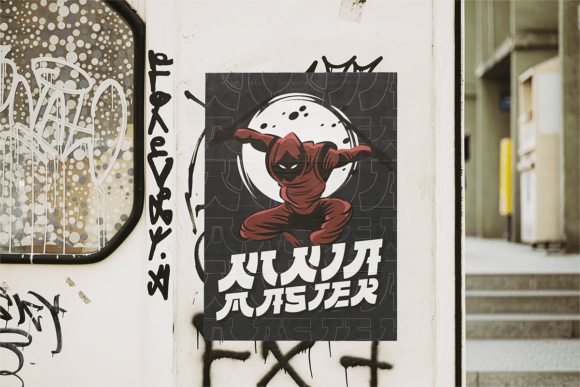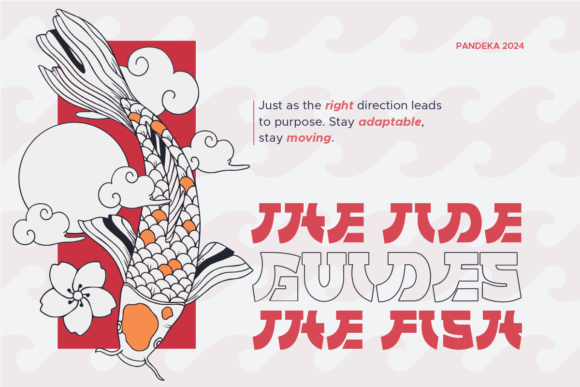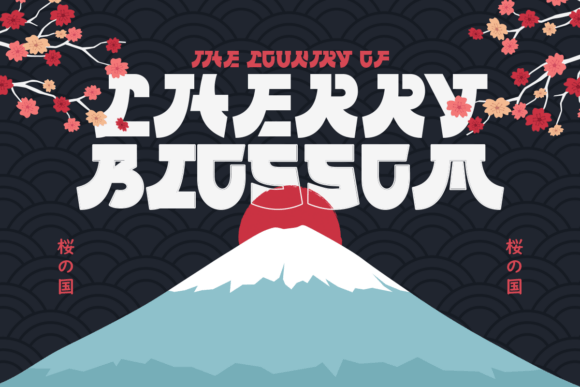
Introduction to Kotaru Font
Have you ever found yourself stuck in a design rut, searching for the perfect font to elevate your creative project? I know I have. That’s why I’m excited to introduce you to Kotaru Font, a stunning modern Japanese-inspired font that’s about to become your new go-to design resource.
Imagine being able to effortlessly craft beautiful, high-quality designs with a traditional Japanese flair, perfect for logos, branding, invitations, posters, and more. With Kotaru Font, that’s exactly what you can do. This versatile font comes in three unique styles – Regular, Extrude, and Outline – making it easy to find the perfect fit for your project.
Whether you’re a seasoned designer or just starting out, Kotaru Font is a valuable addition to your design arsenal. Its sleek, contemporary design and transparent background make it a breeze to work with, and with a free download available, you can get started right away.
Key Features of Kotaru Font
- High-quality font with a unique, elegant design, perfect for creative projects and design resources.
- Available in a transparent background, making it easy to customize and integrate into various designs.
- Includes a comprehensive character set, covering a wide range of languages and characters.
- Designed with high resolution in mind, making it suitable for use in print and digital media, up to 300 DPI.
Honest Review: Kotaru Font
I recently came across the Kotaru Font, a high-quality design resource that’s perfect for creative projects. At first glance, I was impressed by the sleek and modern design of the font. One of the standout features is the transparent background, which makes it easy to integrate into any design.
Here are some of the things that work well with the Kotaru Font:
- ⚠️ Limited customization options, which may not be ideal for designers who want more control
- ⚠️ Not suitable for all types of designs, particularly those that require a bold or dramatic font
Overall, I’m impressed with the Kotaru Font. It’s a great addition to any designer’s toolkit, and its transparent background makes it easy to use. While there are some limitations, I think the benefits far outweigh the drawbacks.
Kotaru Font
The Kotaru Font is a free, high-quality design resource ideal for creative projects. It features a transparent background, making it perfect for adding a touch of elegance to your designs.
To get the most out of the Kotaru Font, experiment with different font sizes, styles, and combinations to create a unique look. You can also use the font in conjunction with other design elements to add depth and interest to your designs.
The Kotaru Font is perfect for a variety of creative projects, including graphic design, web design, and digital art. It’s also great for adding a touch of elegance to presentations, reports, and other documents.
Lato is a high-quality font that’s perfect for creative projects that require a modern and elegant look. It’s available for free download and features a transparent background, making it suitable for designs where the text needs to shine. Use Lato when you need a font that’s highly customizable and suitable for a wide range of design projects. Compared to Kotaru Font, Lato has a more refined structure, making it perfect for designs that require a touch of sophistication and elegance.
What is the recommended resolution for using the Kotaru Font?
For optimal results, we recommend using the Kotaru Font at a minimum resolution of 300 DPI. This will ensure that the font appears crisp and clear, even when scaled up or used in large designs. If you’re working on a project that requires higher resolution, please use the font at the recommended resolution for the best results.